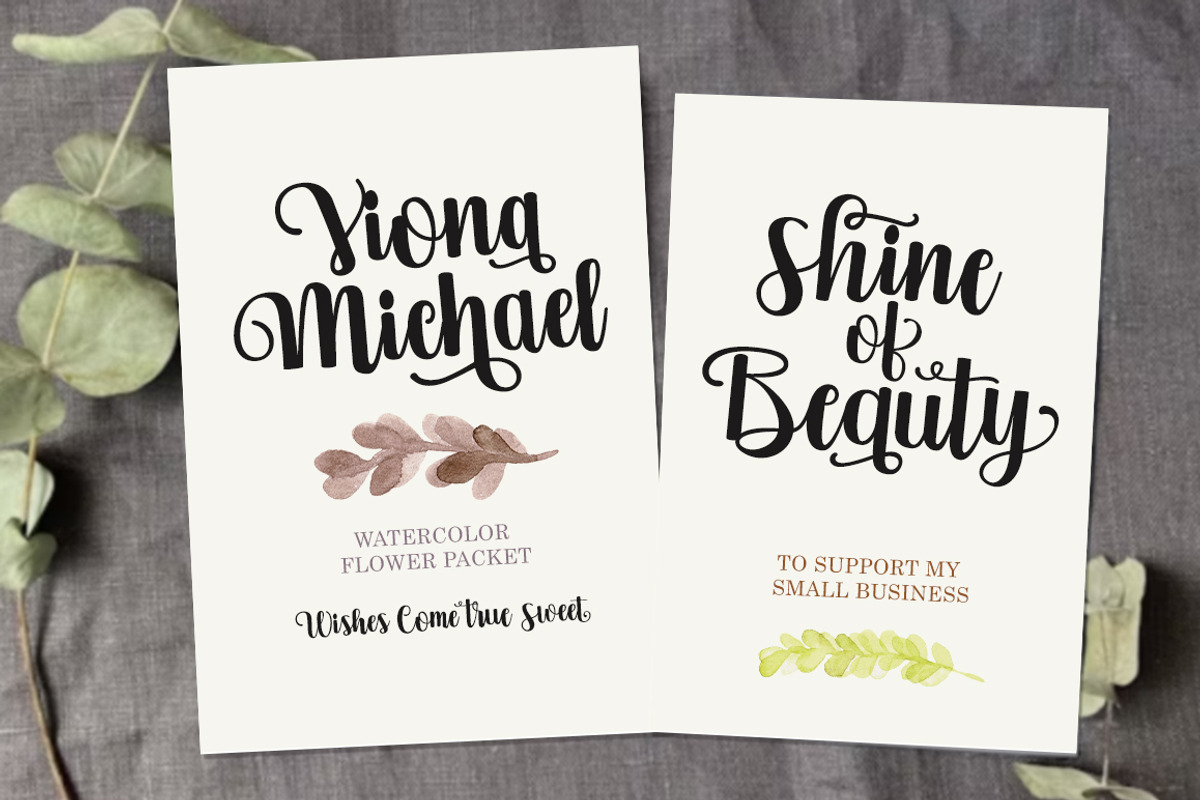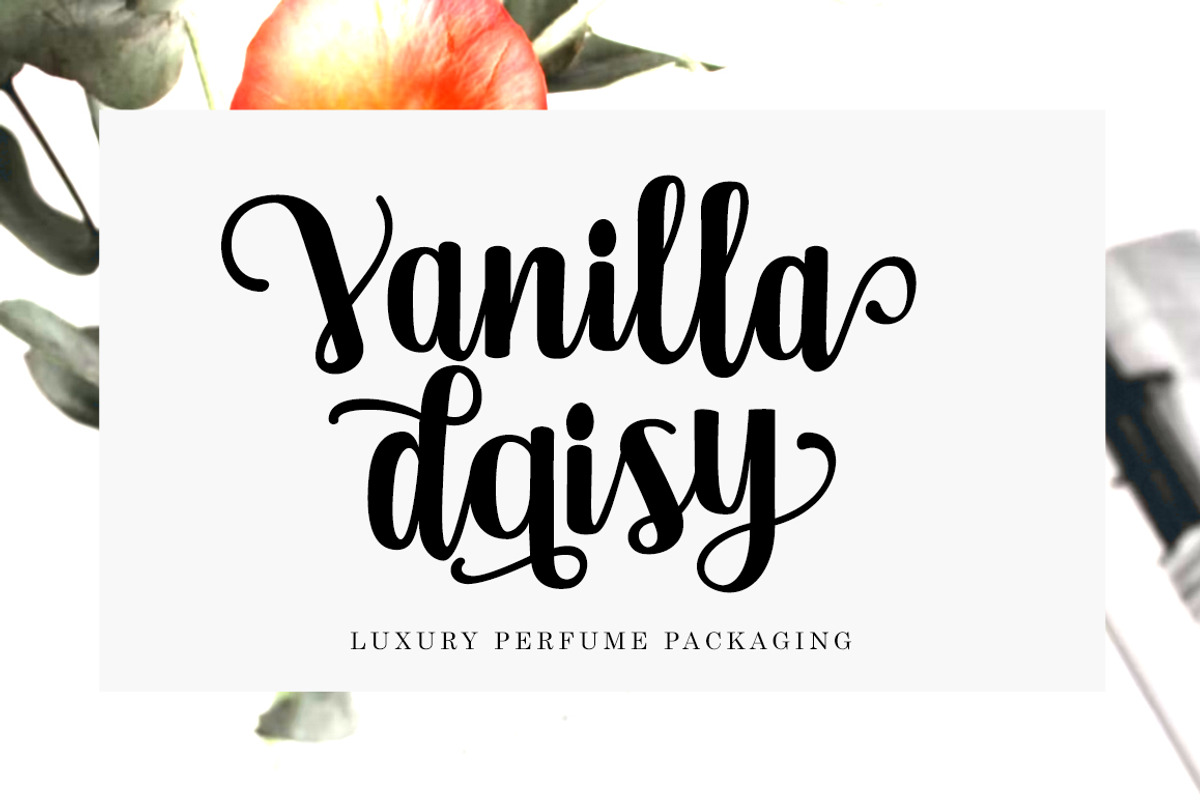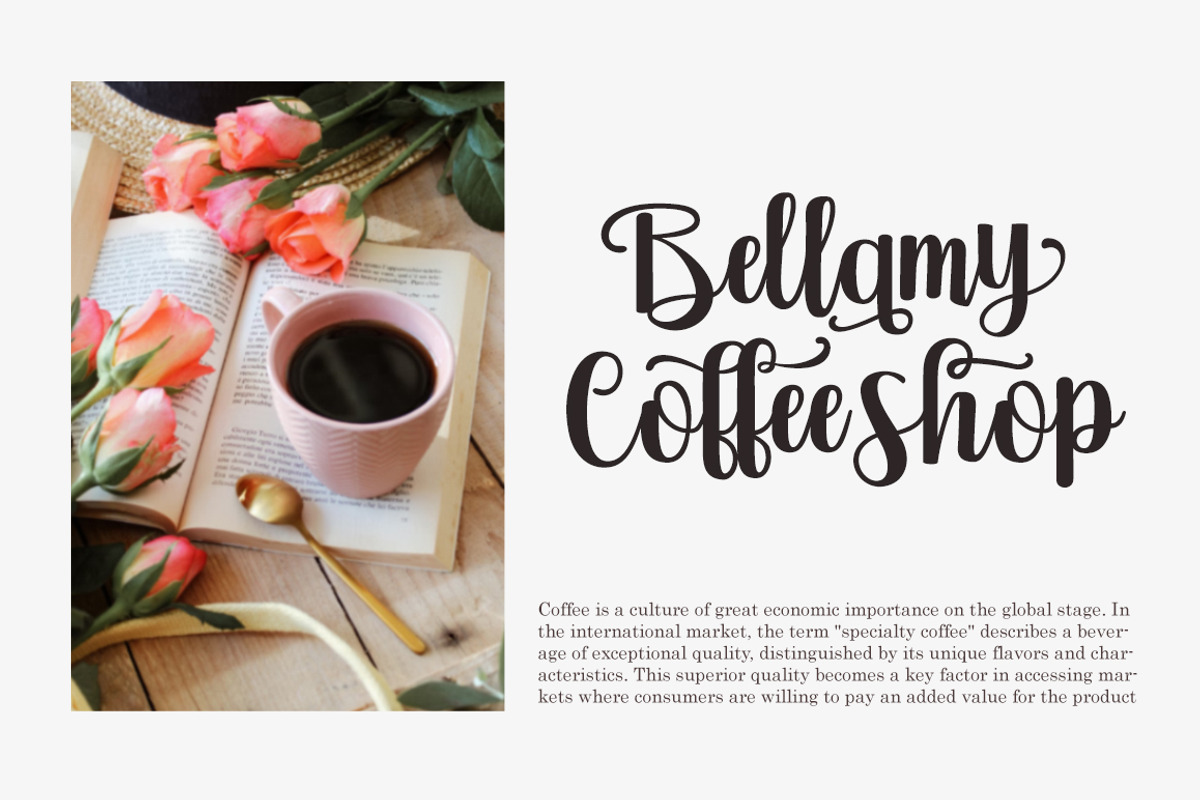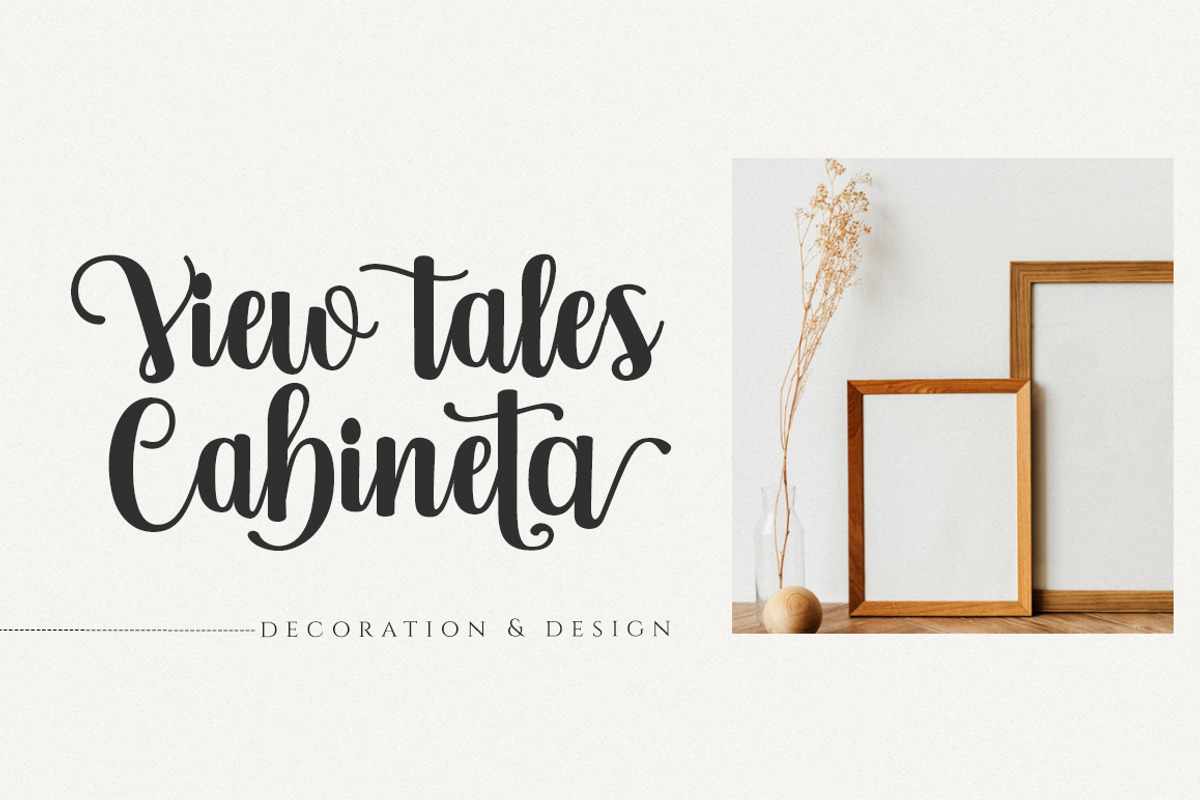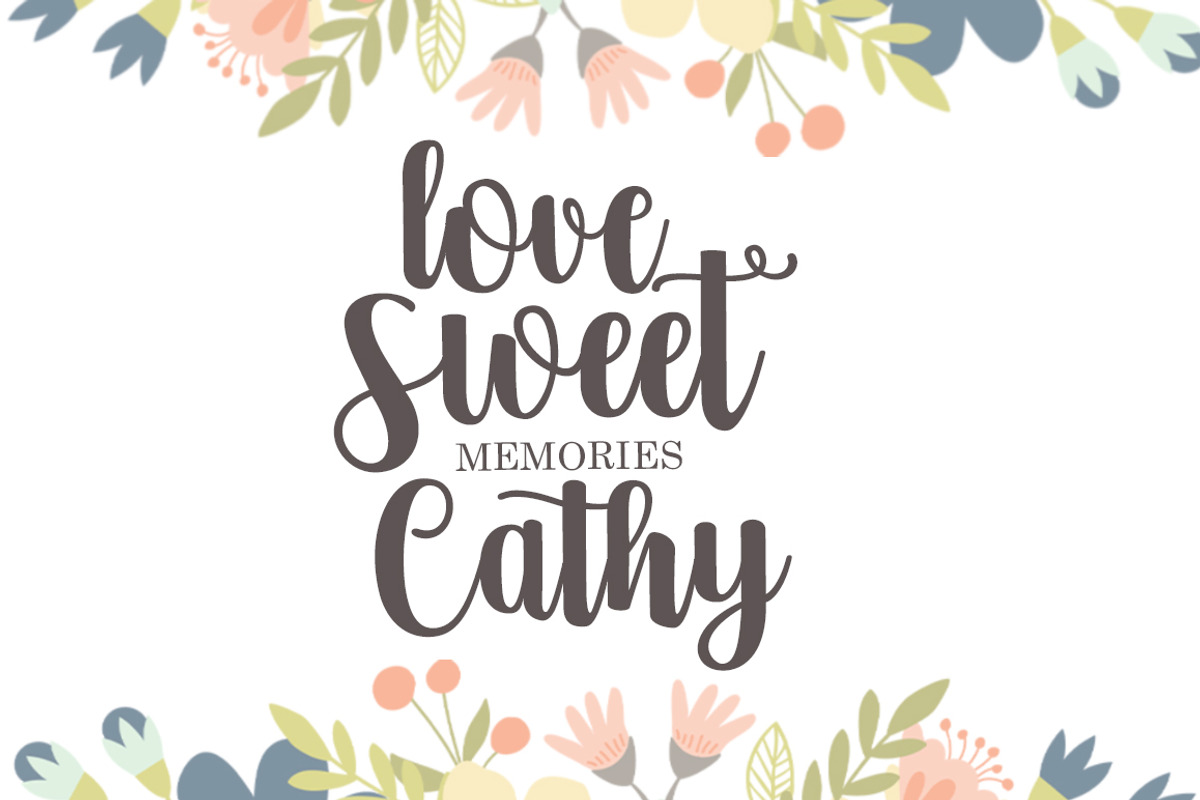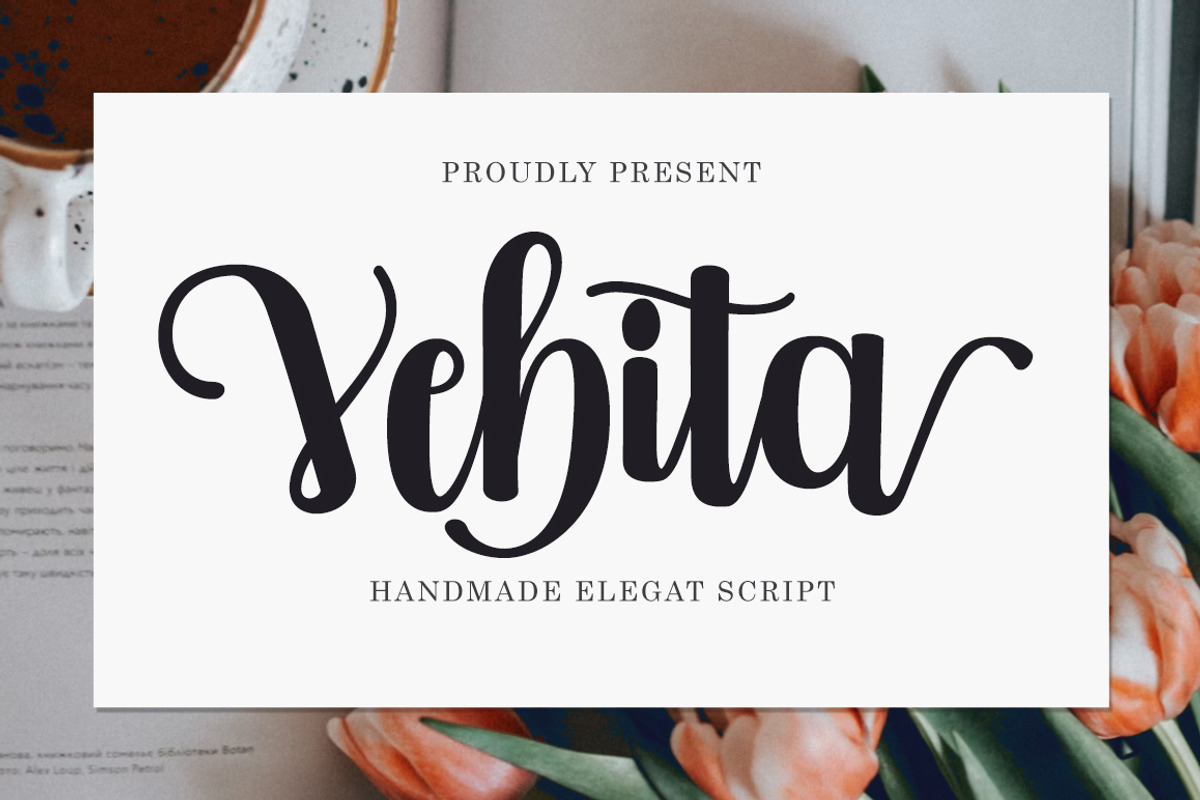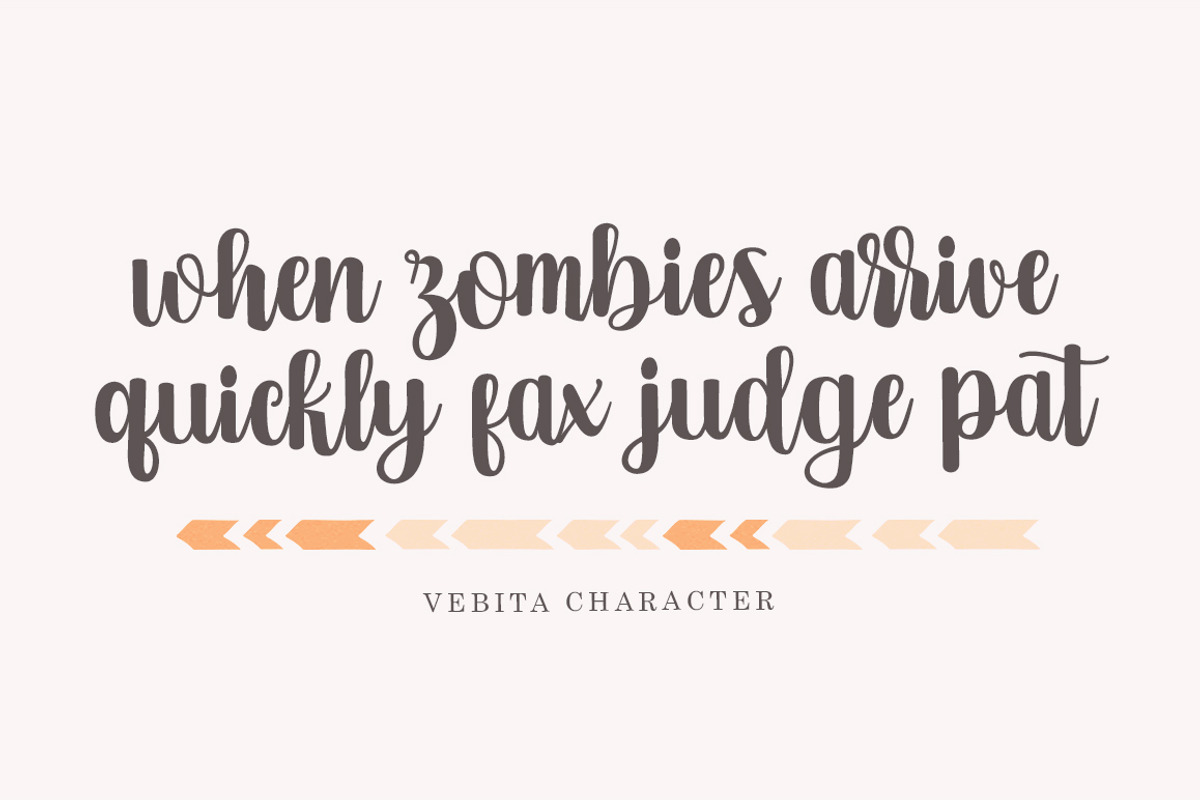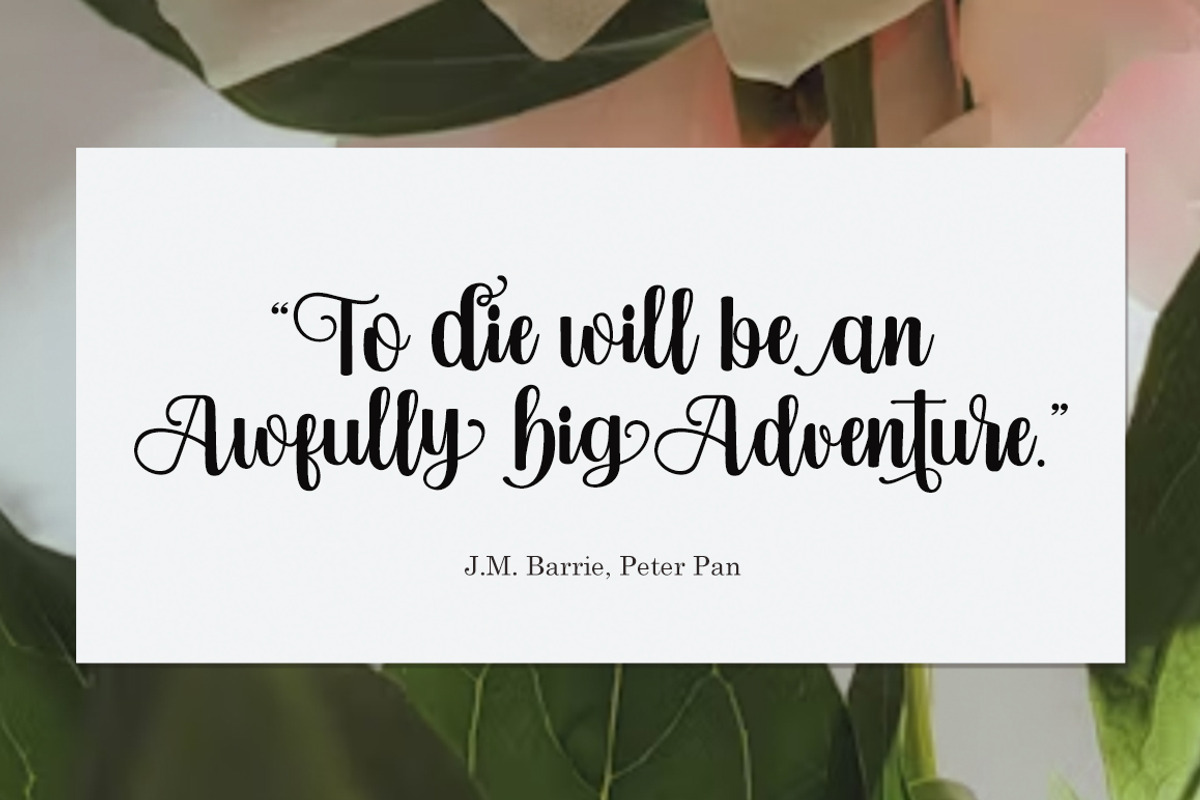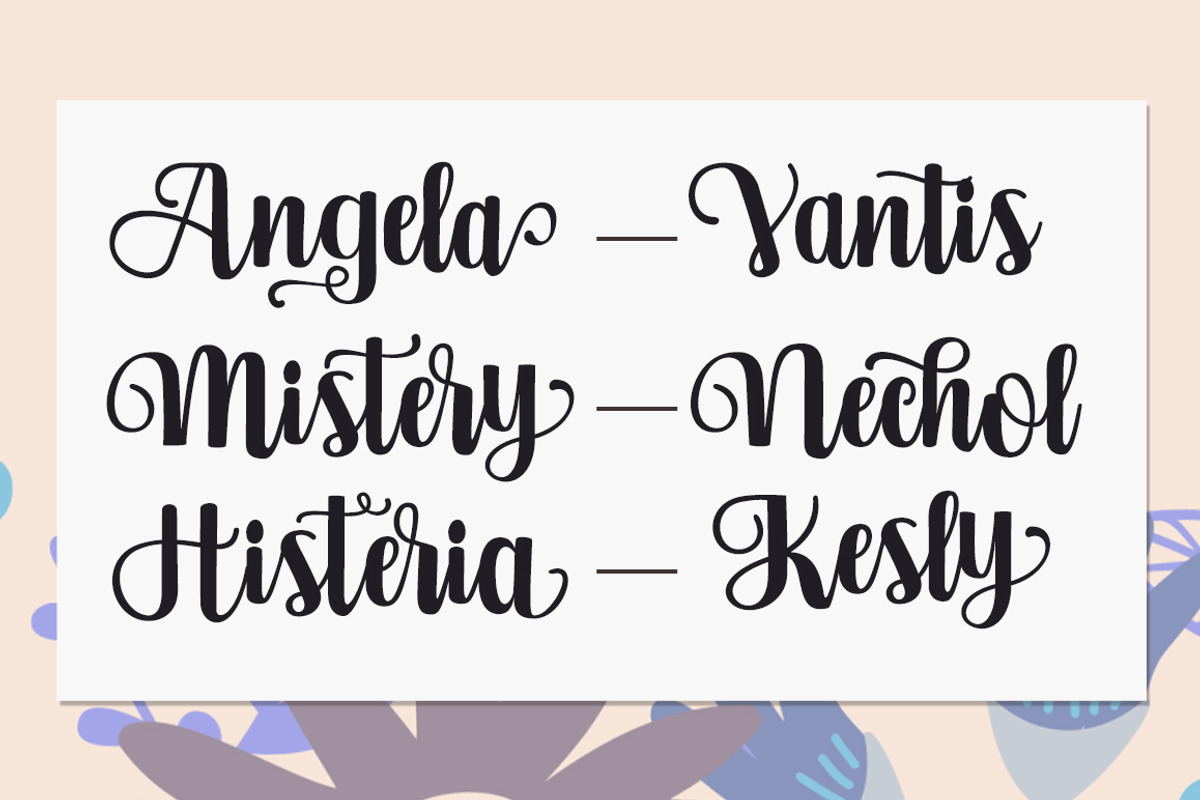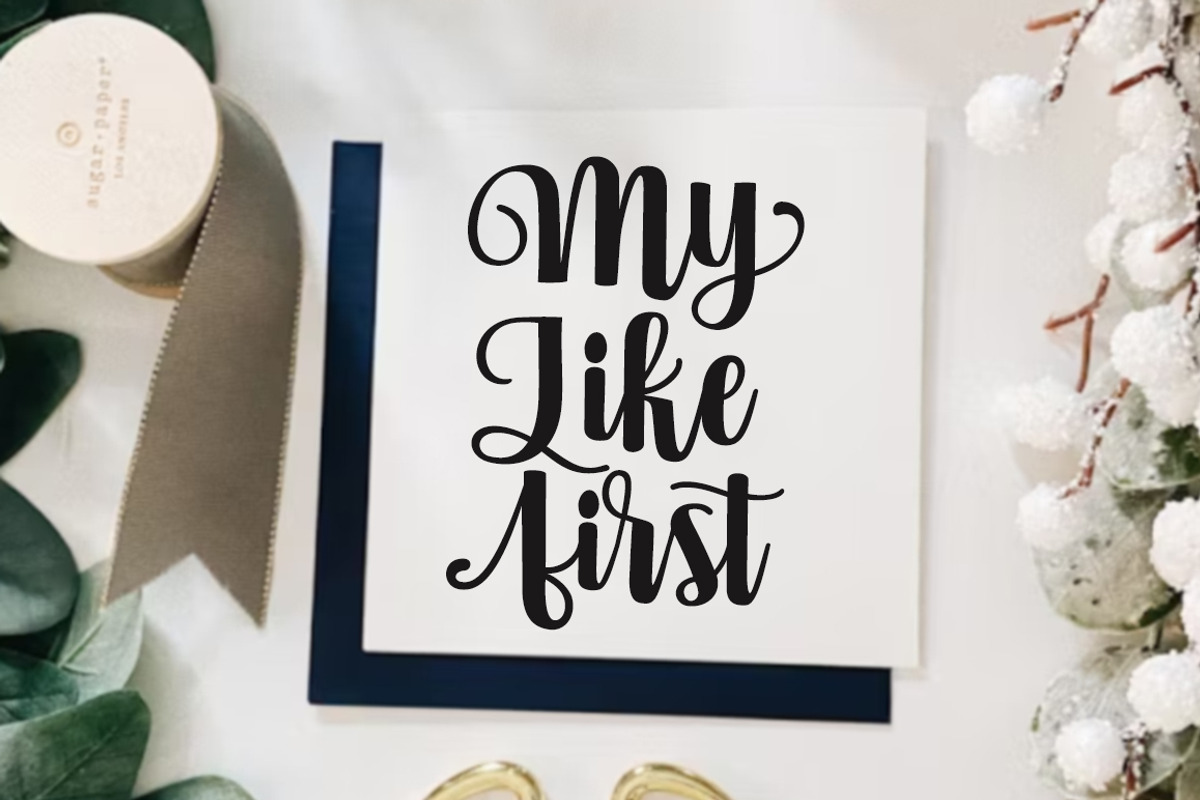
Vebita
Vebita is a romantic and timeless script font. With flowing curves and delicate details, it's perfect for branding, wedding invitations, packaging, apparel, and more.
With access to stylistic alternatives, Vebita lets you create truly unique and expressive typography. Its OpenType features provide seamless customization to meet any design vision.
Stylistic set (ss01, ss02, ss03, ss01)
Discretionary Ligature